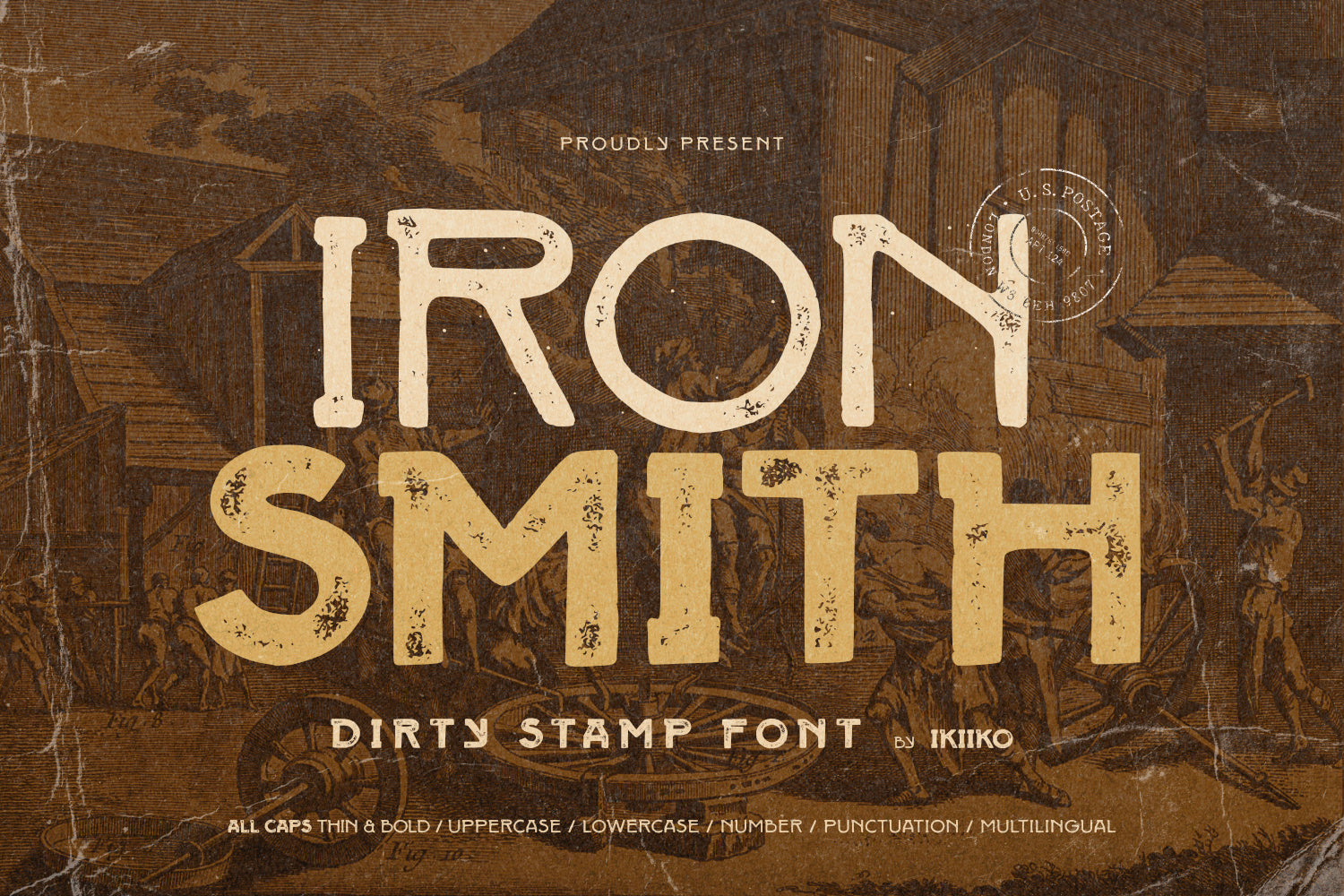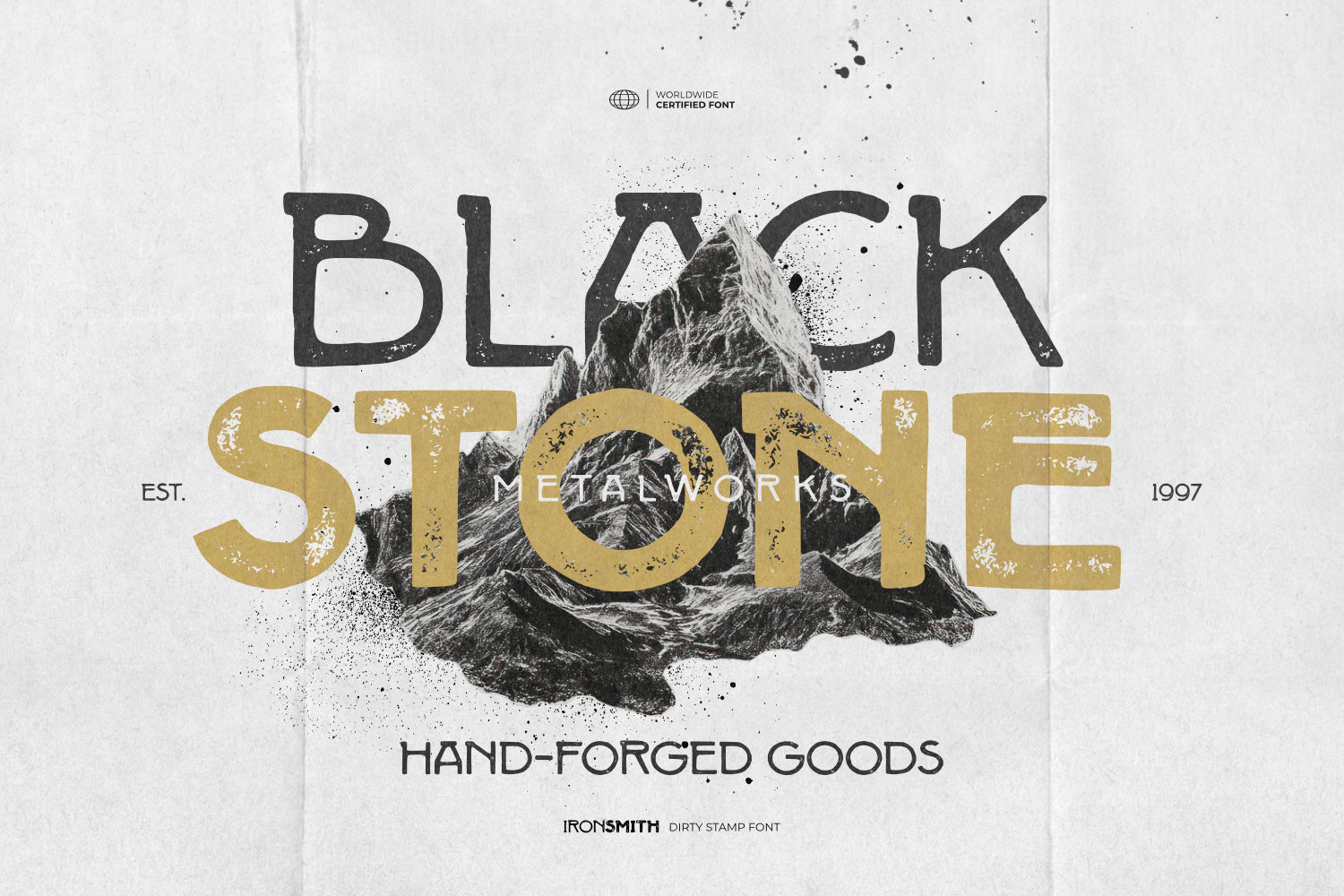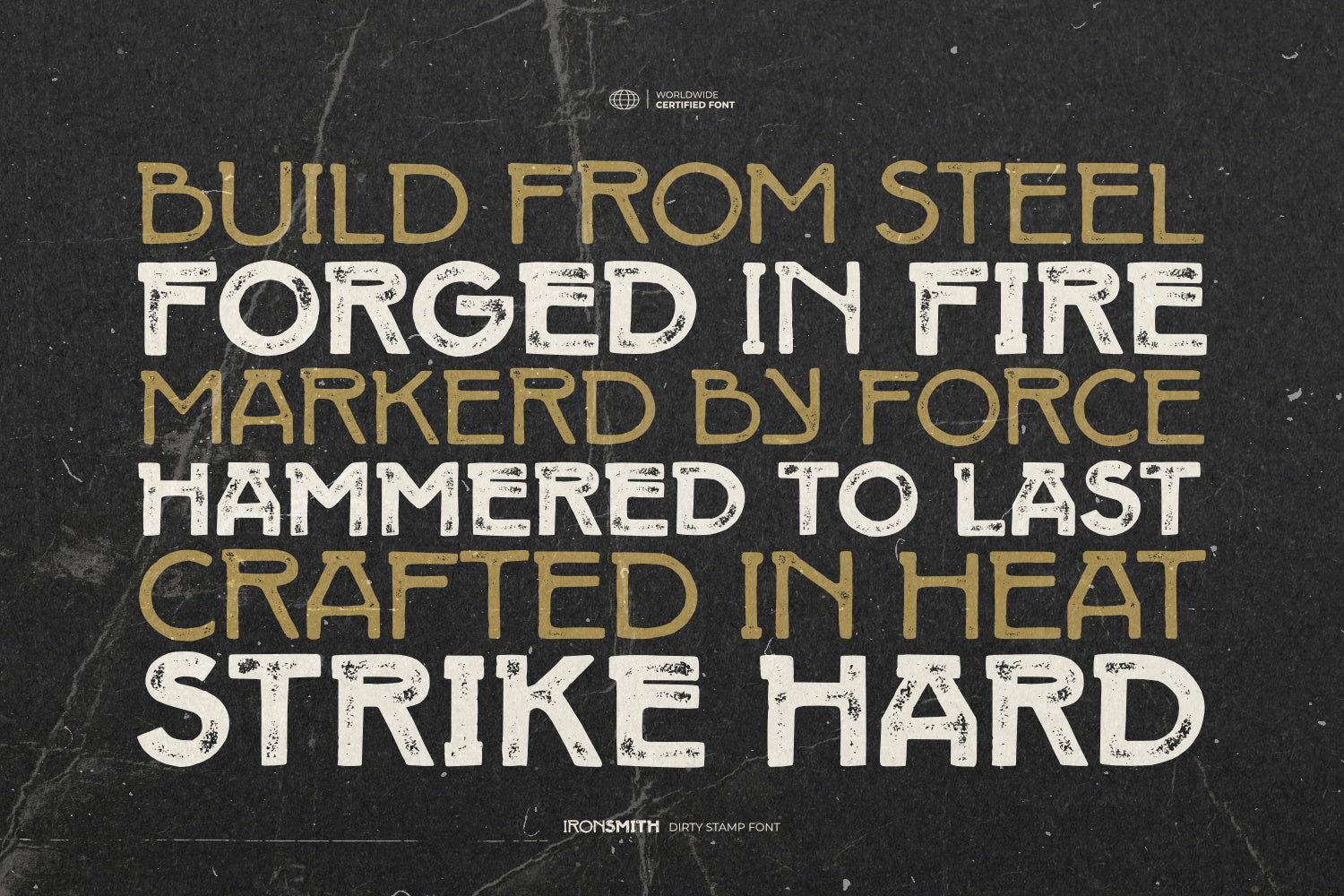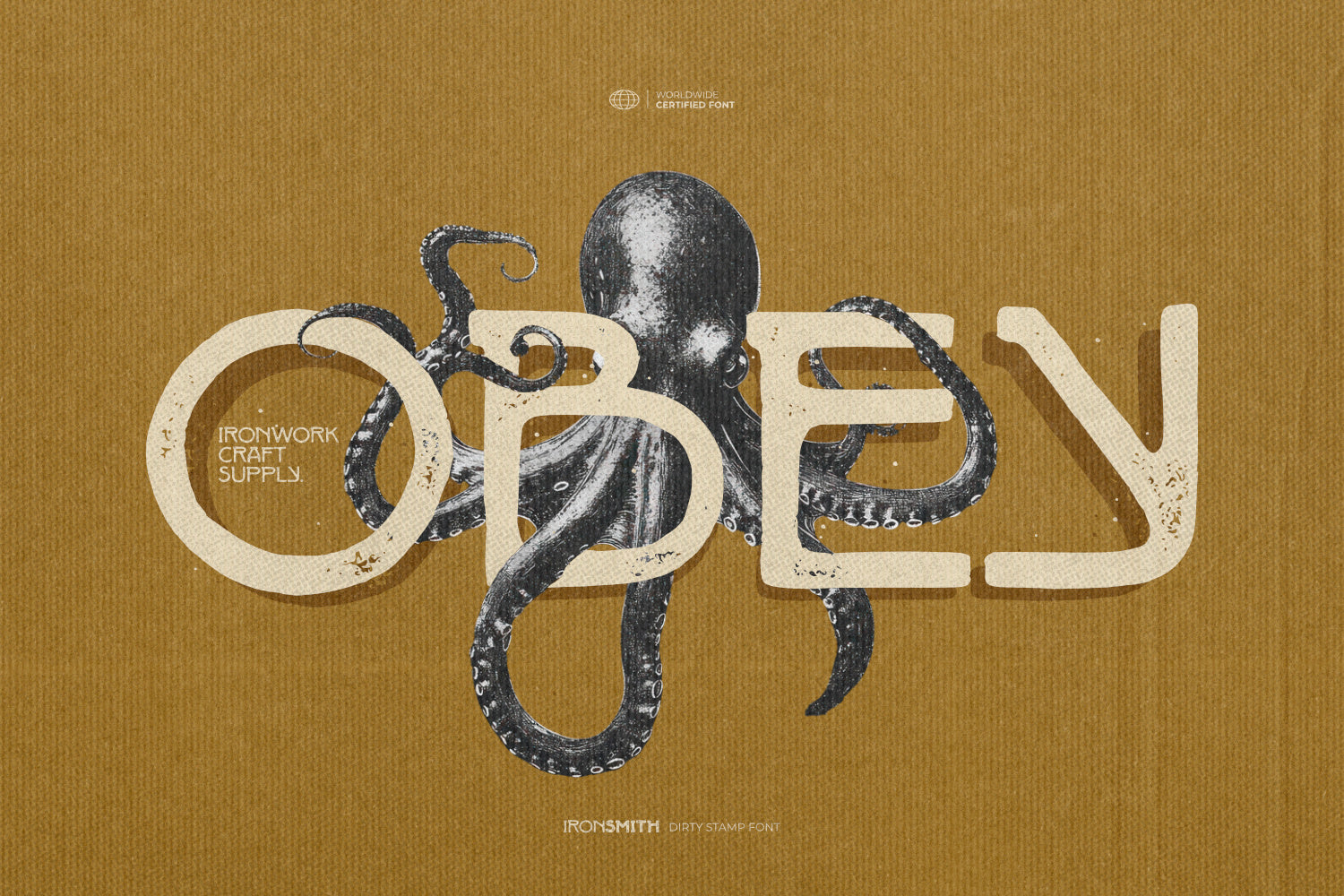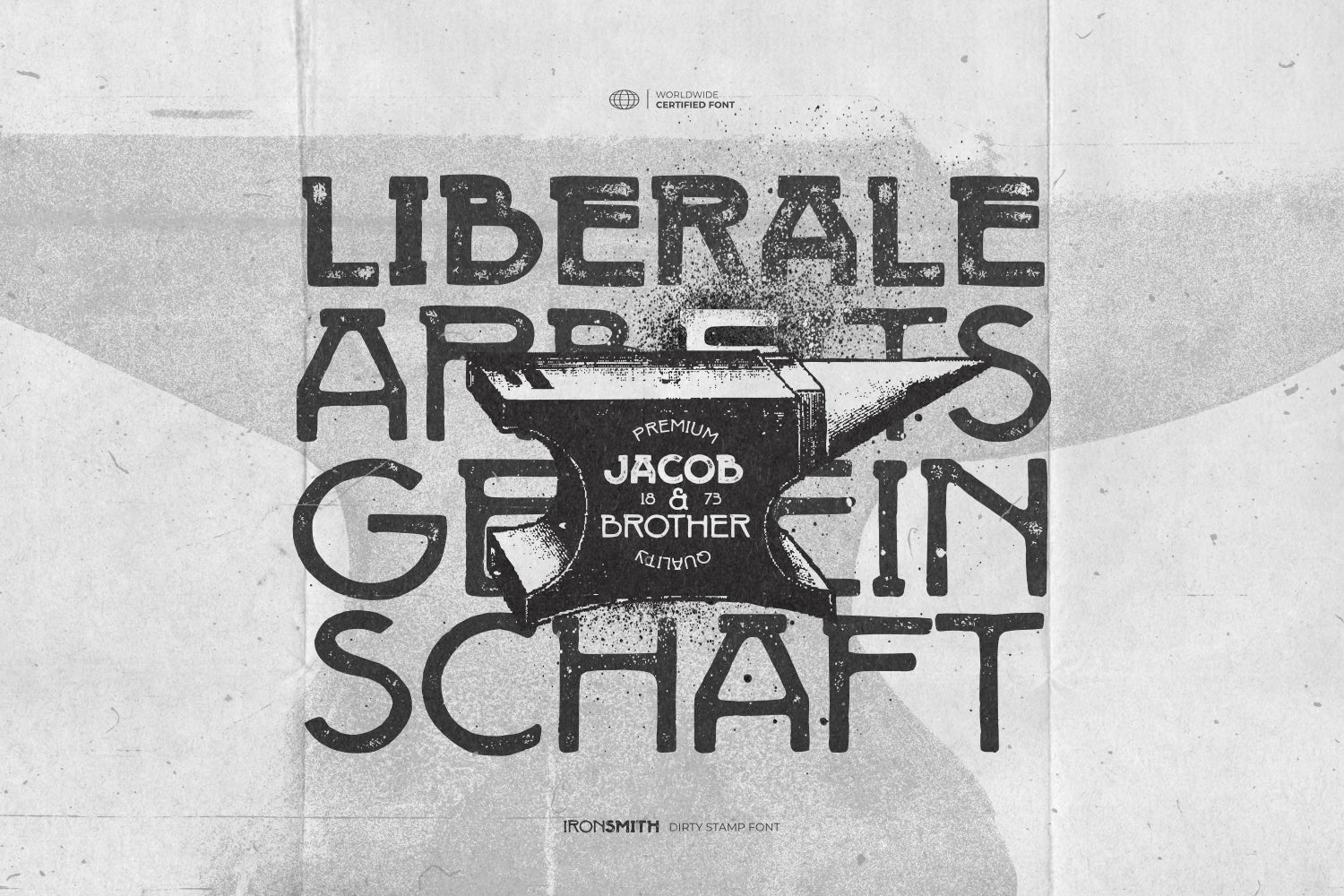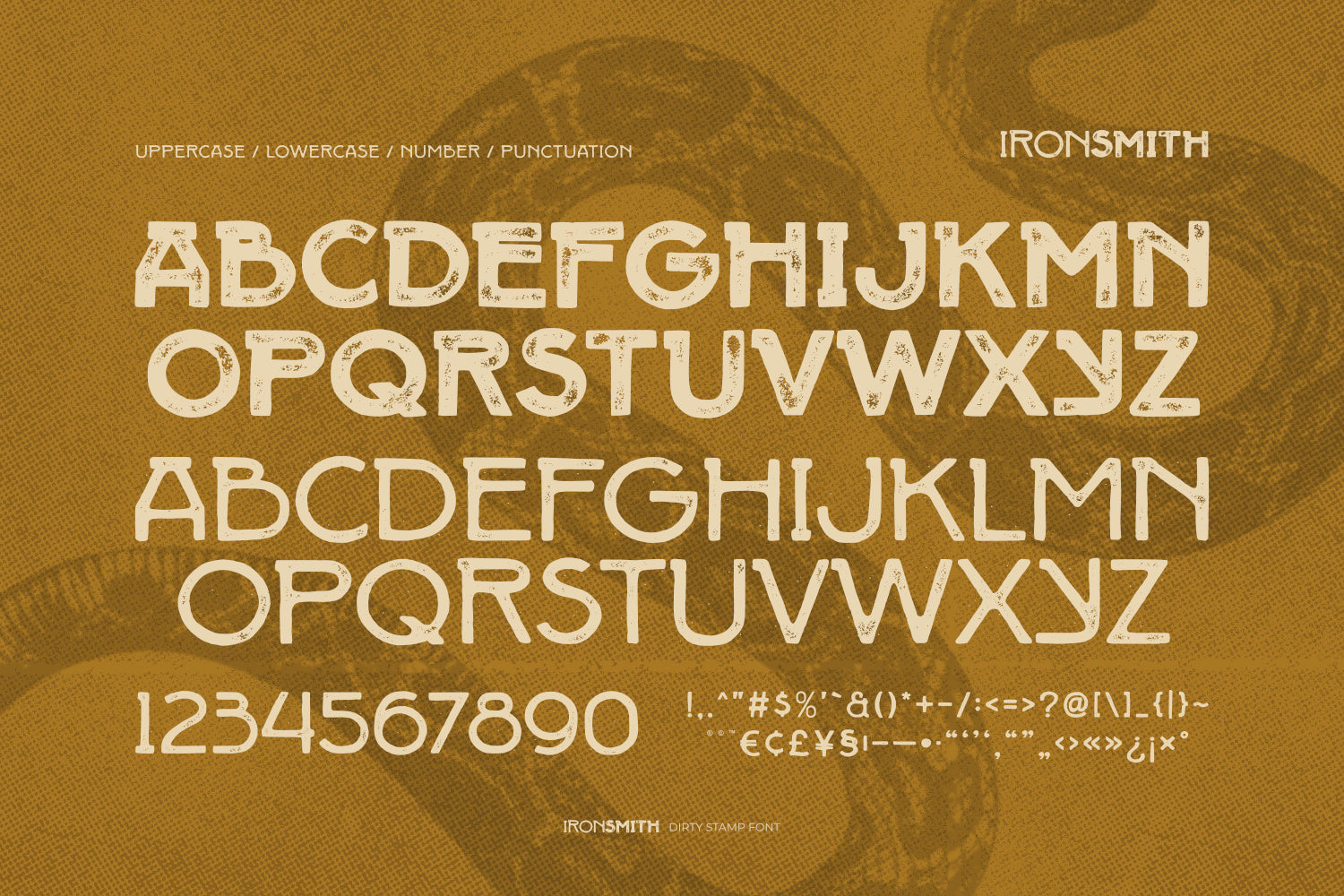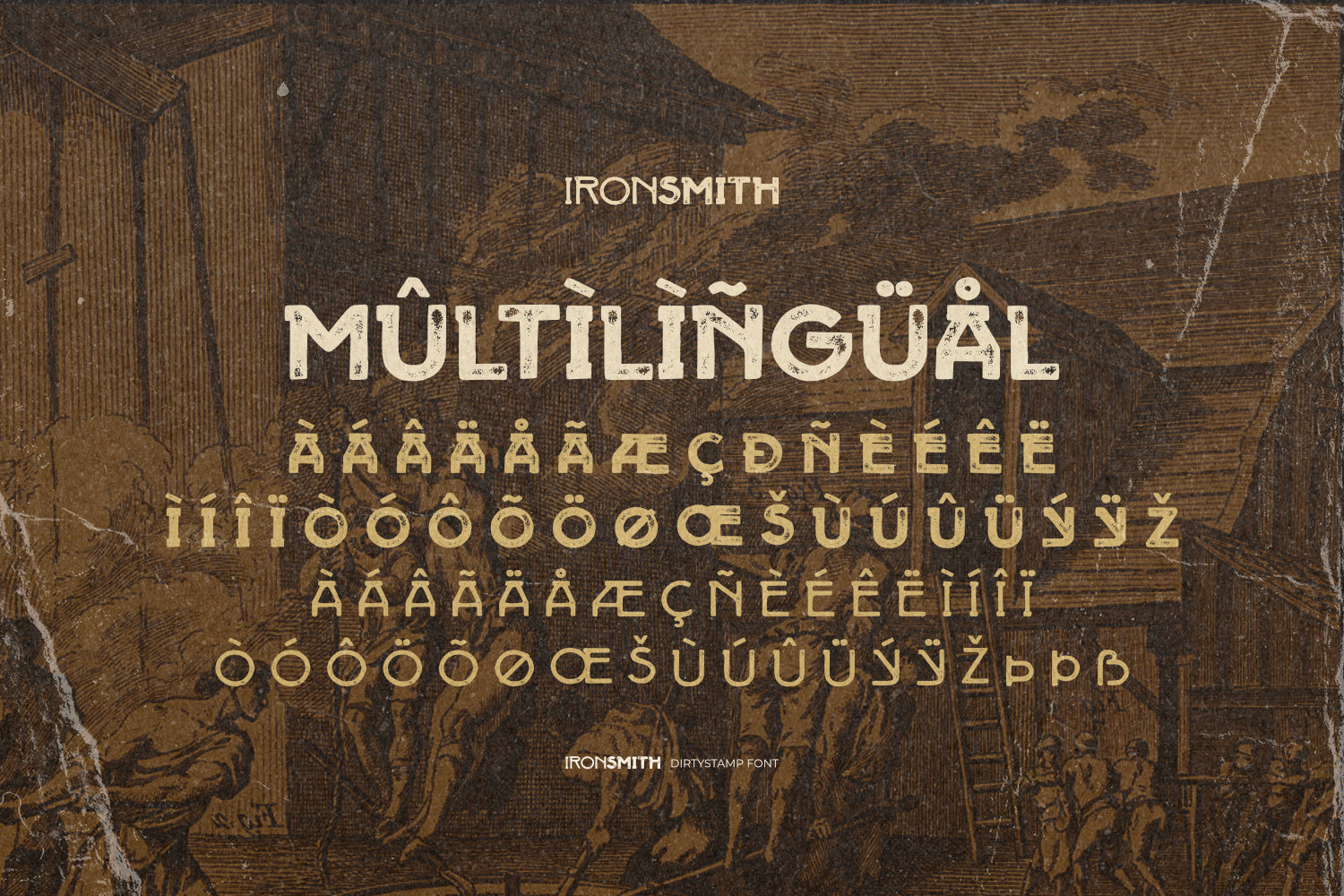
Proudly Present Iron Smith – Dirty Stamp Font, created by ikiiko
Iron Smith is a handcrafted, organic, rough-cut typeface forged straight from grit and fire. Built with raw energy and distressed stamp textures, this font carries the attitude of worn steel, hammered surfaces, and unapologetic imperfection.
Every letter feels bold, strong, and masculine—like it’s been struck under pressure, leaving behind a dirty, imperfect stamp mark that screams authenticity. The texture isn’t polished—it’s gritty, raw, and alive, giving your designs that underground, industrial edge that clean fonts just can’t fake. This is not your average display font. Iron Smith thrives in chaos—perfect for projects that demand impact, attitude, and a handcrafted soul.
This font is perfect for posters, logo, badges, movie titles, branding, vintage layout, blacksmith-style visuals or anything that needs a strong typeface